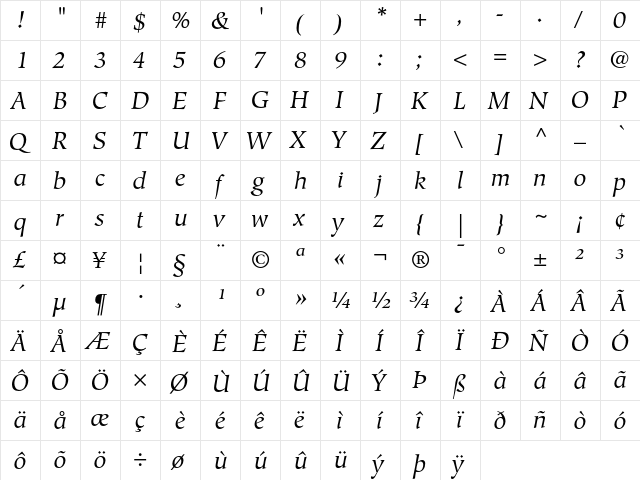
Hiroshige Book Italic
Design Context for Hiroshige Typeface
Hiroshige takes a measured approach to typography — its balanced proportions and neutral character make it a reliable workhorse for both digital and print work. Its italic angle brings a sense of urgency and motion to the letterforms.
Pro Tip: Use Hiroshige for emphasis, pull quotes, and subheadings where its slanted energy can add rhythm to the layout.